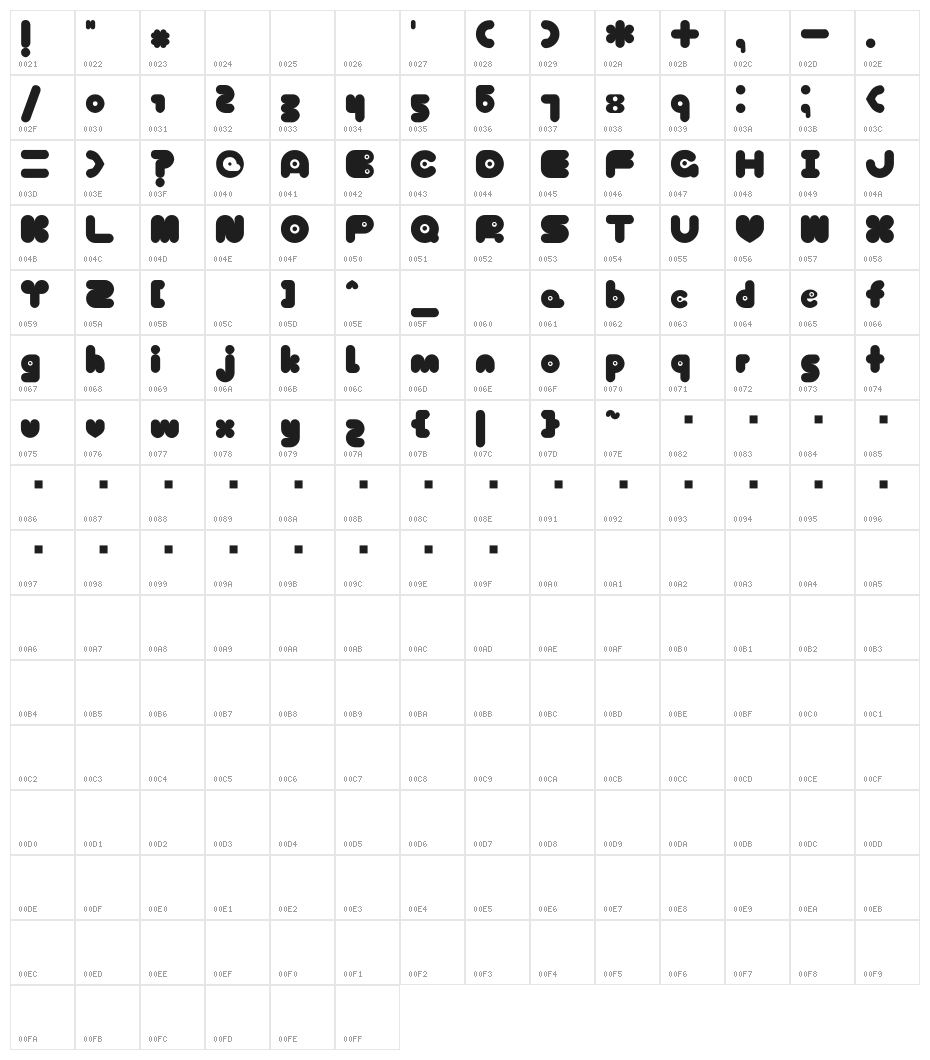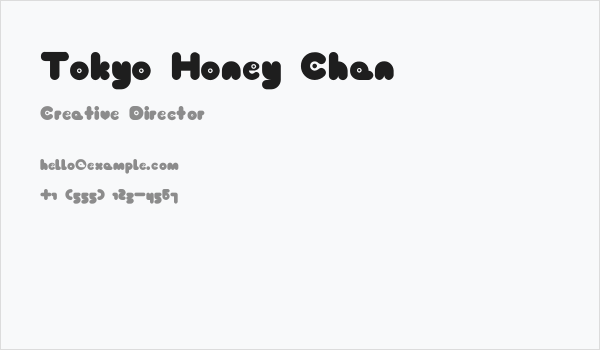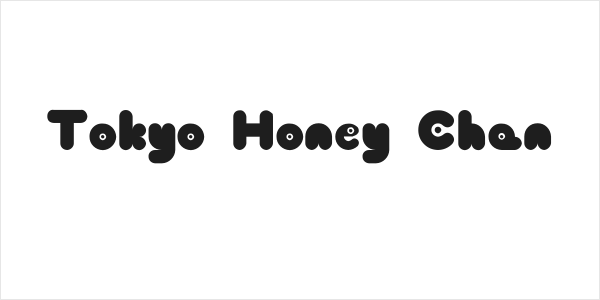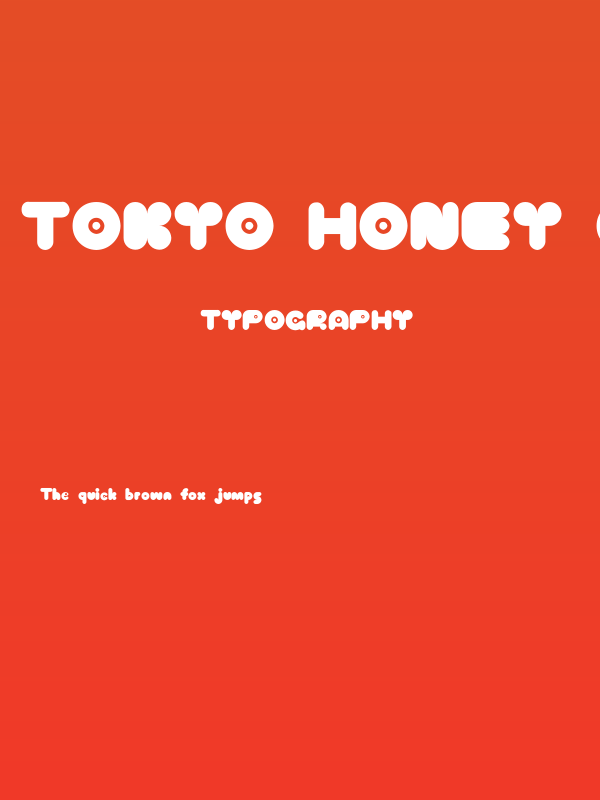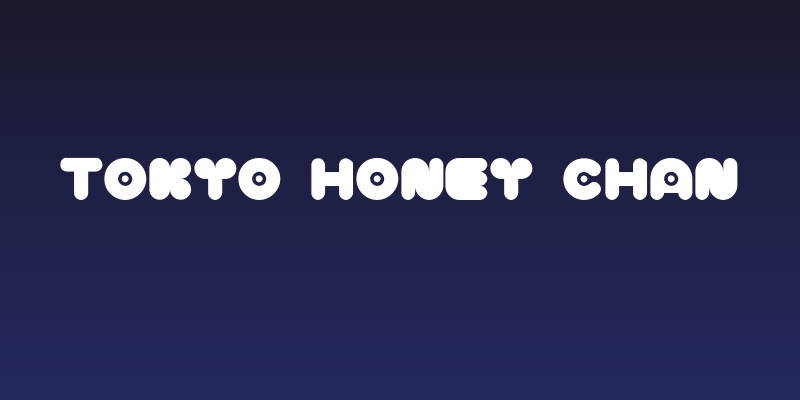
Tokyo Honey Chan Font
Tokyo Honey Chan Description
This playful and bold font features rounded, bubbly characters that exude a sense of fun and whimsy. The letters are thick and uniform, with a consistent stroke width that gives them a cohesive look. The uppercase and lowercase letters maintain a similar style, with some characters incorporating unique elements like hearts and dots. The numbers and special characters follow the same playful design, making the font suitable for creative and informal projects. Its distinct style is eye-catching and memorable, perfect for capturing attention.